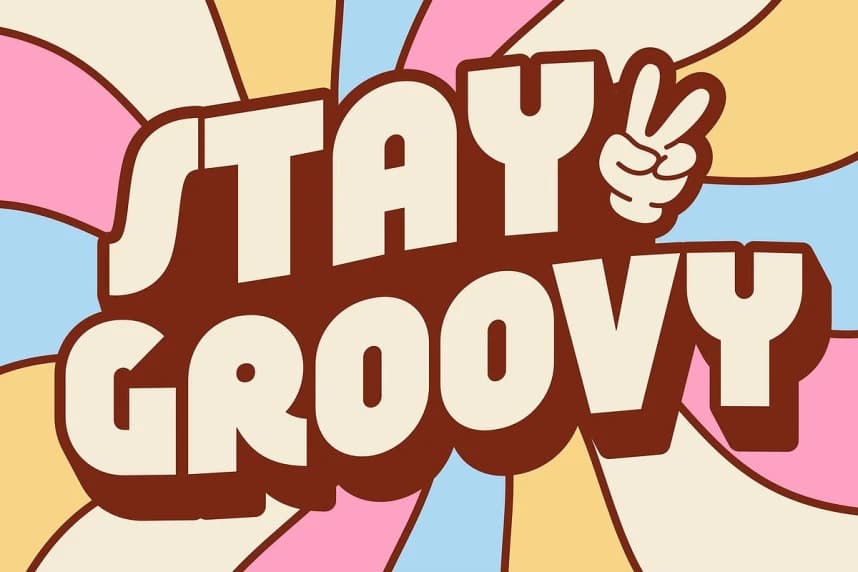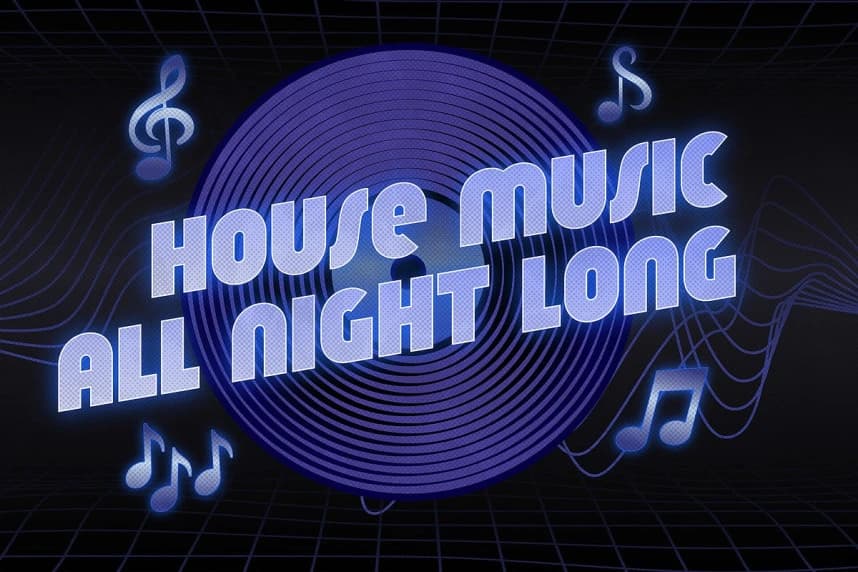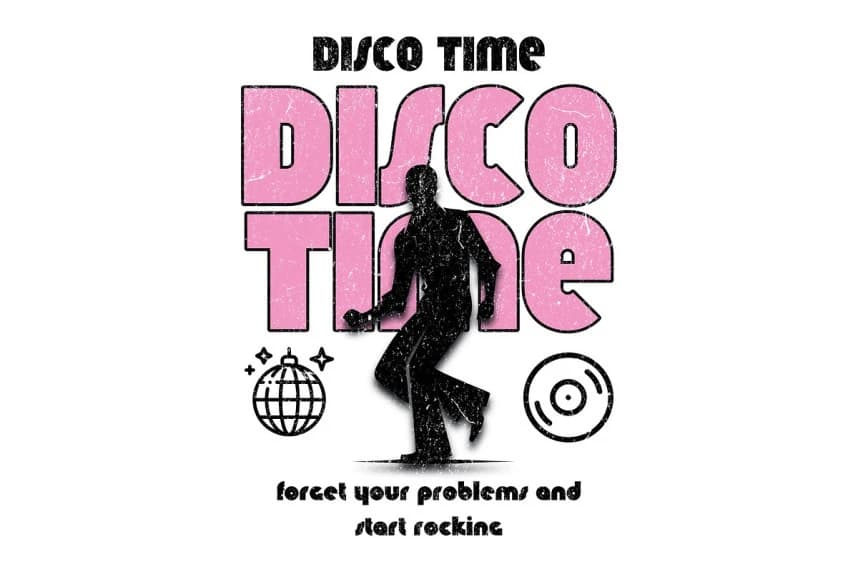
Groove Machine Font
Groove Machine Font, a bold and electrifying typeface that captures the unstoppable rhythm of the disco era. Inspired by the glitz and glam of 1970s and 1980s nightlife, this font struts onto the scene with big personality, dazzling curves, and high-energy flair.